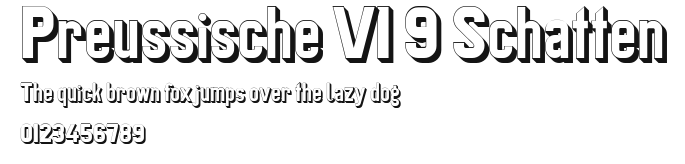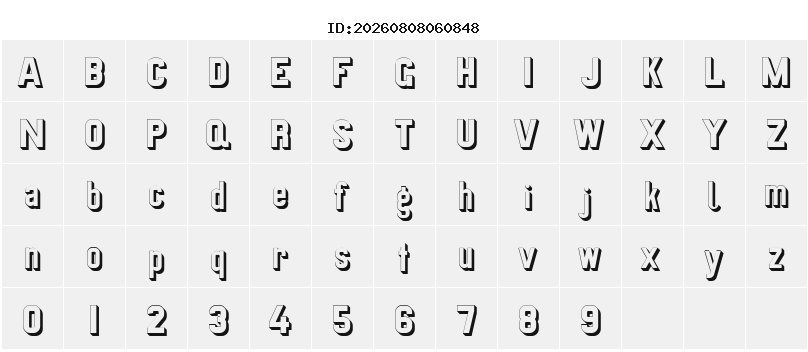
Preussische VI 9 Schatten Preview
• Font Name: Preussische VI 9 Schatten
• Font ID: PeterWiegel: Preussische VI 9: 2009
• Full Font Name: Preussische VI 9 Schatten
• Designer: Peter Wiegel
• Manufacturer: Peter Wiegel
About Preussische VI 9 Schatten.ttf
Preussische VI 9 Schatten.ttf is a modern, elegant sans-serif font designed for ultimate readability and visual harmony. Perfect for branding, headlines, web design, and print materials.